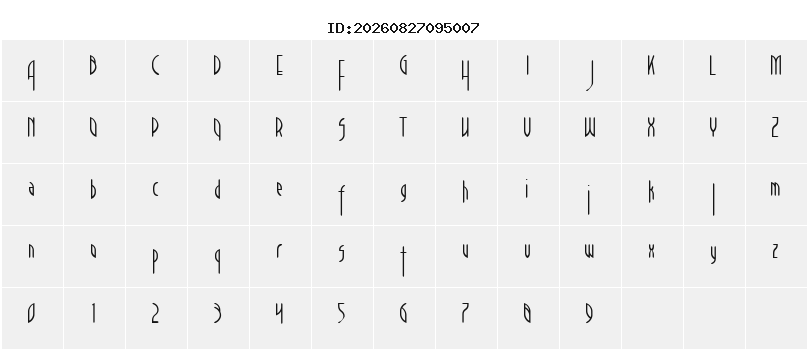
• Font Name: 33RPMStylus
• Full Font Name: 33RPMStylus
• PostScript Name: 33RPMStylus
About 33RPMStylus.ttf
33RPMStylus.ttf is a modern, elegant sans-serif font designed for ultimate readability and visual harmony. Perfect for branding, headlines, web design, and print materials.